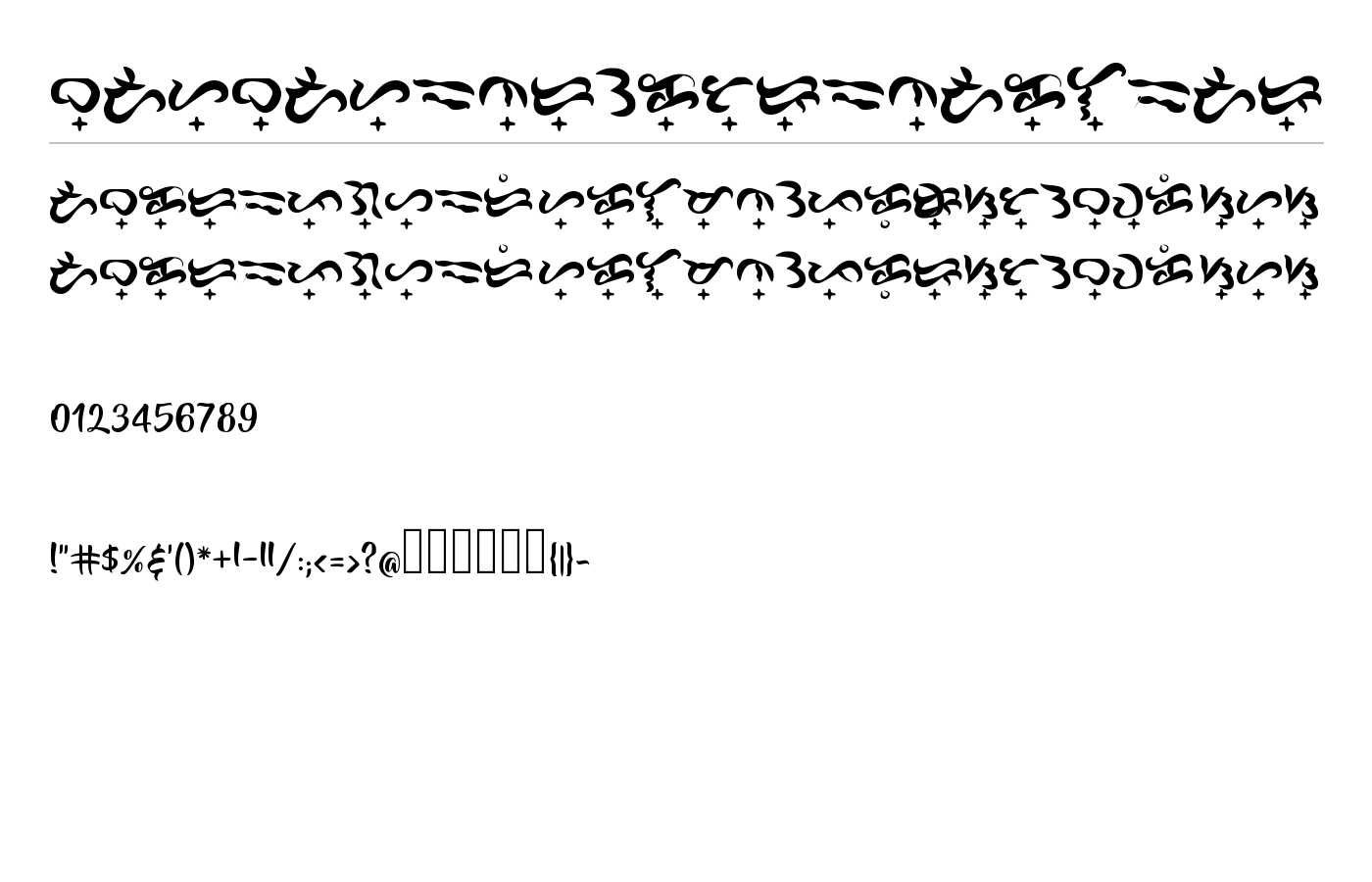
Baybayin Doctrina is a decorative script font inspired by traditional Filipino Baybayin characters, featuring bold, flowing strokes with a calligraphic feel. Its unique, intricate letterforms convey a sense of cultural heritage and artistry, making it ideal for projects that seek to evoke history, tradition, and ethnic charm. This font works best in logos, cultural posters, and creative branding where an authentic, hand-crafted look is desired.
Baybayin Doctrina Font
About Baybayin Doctrina Font
| Font family | Baybayin Doctrina Font |
| Designer | Johnrel Lor |